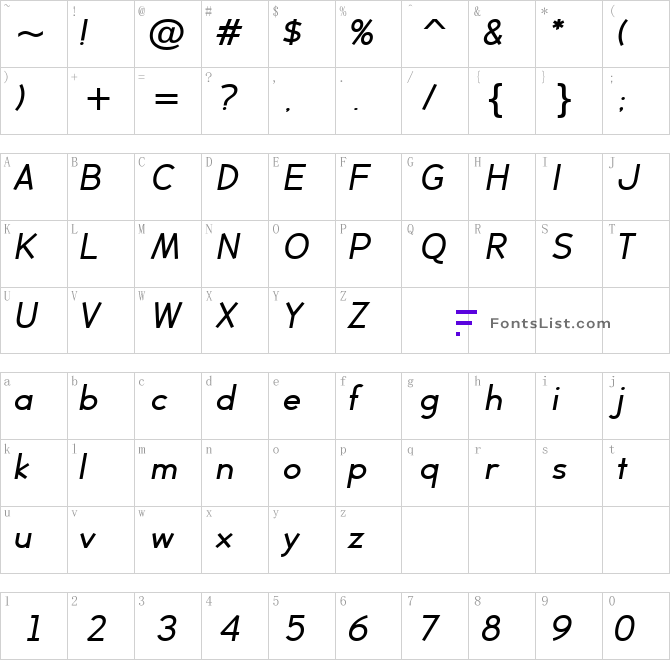
• Font Name:BacktalkSans BTN
• Subfamily:BoldOblique
• Subfamily:BacktalkSans BTN BoldOblique
• Full Name:BacktalkSans BTN BoldOblique
• Weight:700
BacktalkSans-BTN-BoldOblique.ttf is a very beautiful artistic font, BacktalkSans-BTN-BoldOblique.ttf is widely used in the design and printing of various books and pictures,BacktalkSans-BTN-BoldOblique.ttf has a strong visual impact,BacktalkSans-BTN-BoldOblique.ttf is a commonly used font in newspapers, magazines and books, and is used in posters, e-commerce Poster design, store design, logo design, font design and other fields.BacktalkSans-BTN-BoldOblique.